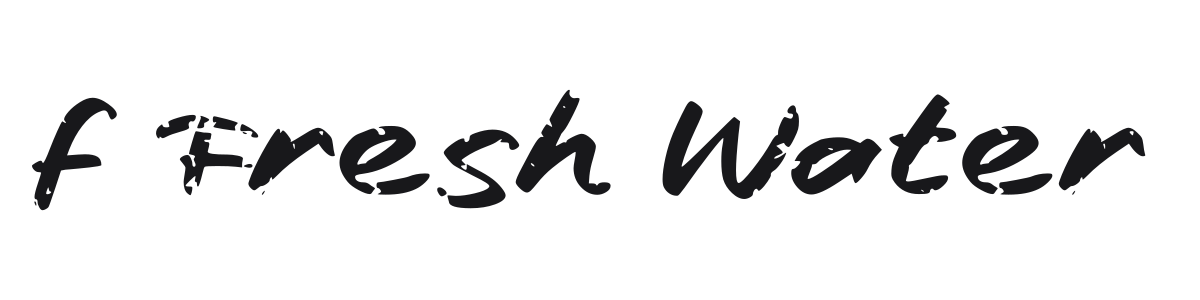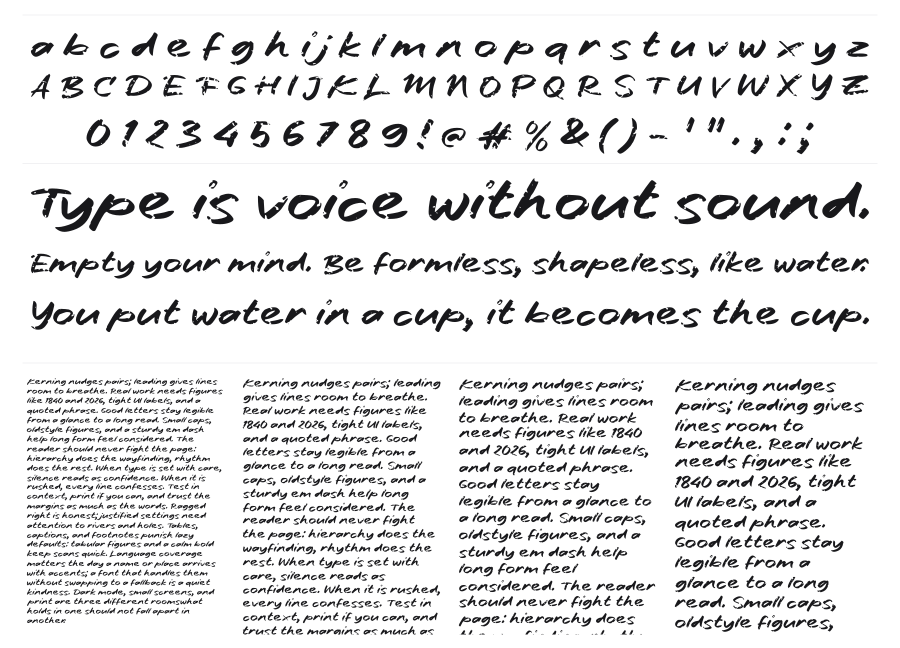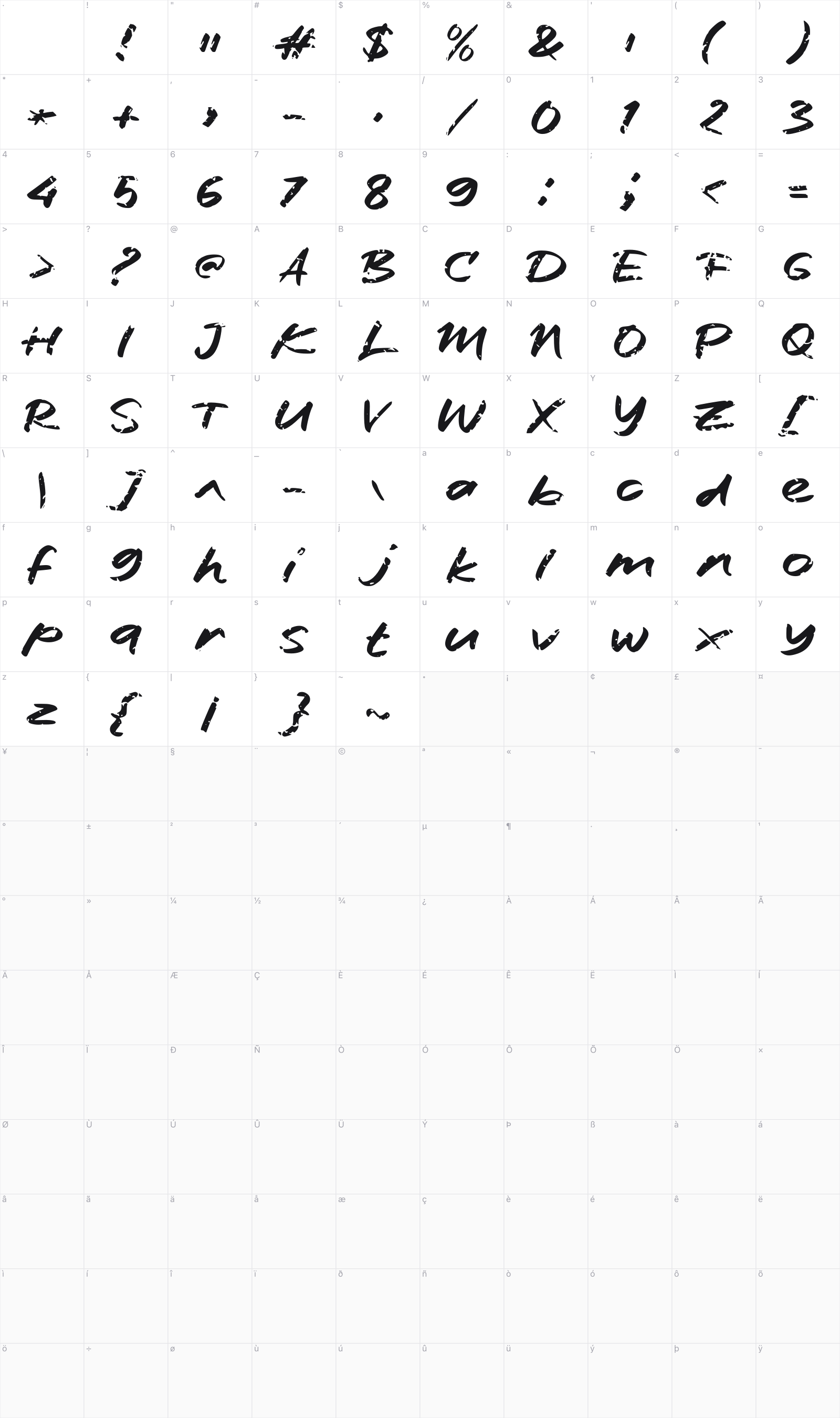
f Fresh Water
Fresh Water is a distressed brush script built entirely from broken, fraying strokes that feel like ink dragged across rough paper at speed. The texture is genuinely rough, with gaps and splinters throughout every letter rather than a clean outline with a filter applied. It suits anything that needs an immediate, untamed handmade energy.